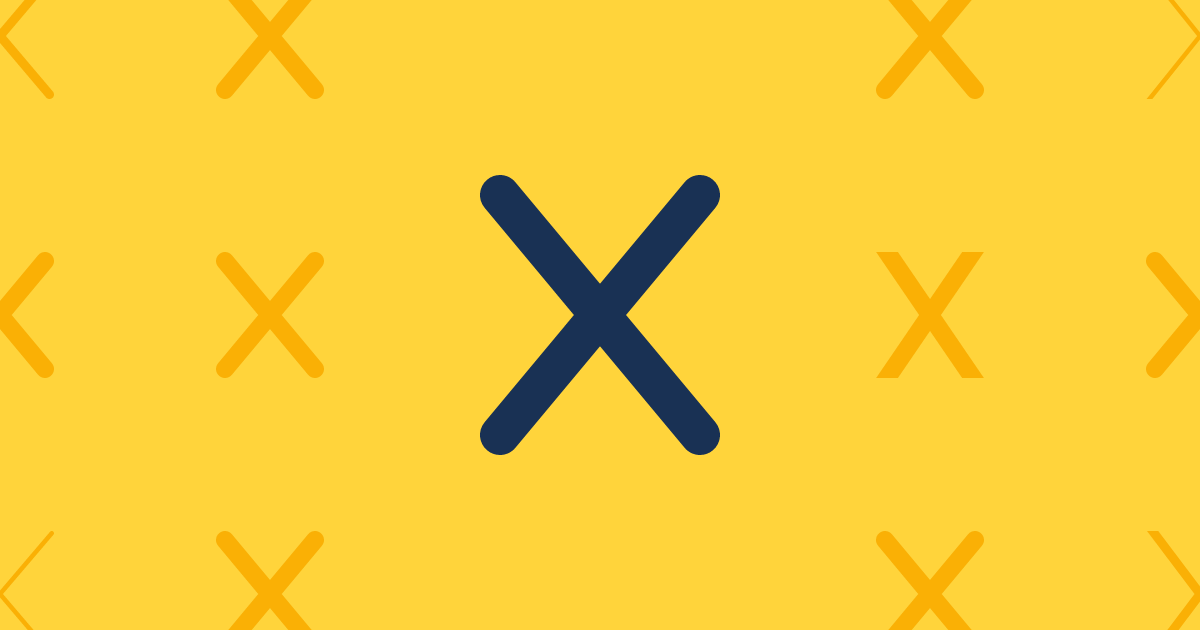
Font Awesome Icon X . Get set up and learn how to use version 5 icons in your projects, awesomely. Why does the twitter x icon not work in this code using font awesome 6? It is utilized for the termination or dismissal. Font awesome docs version 5. You asked, font awesome delivers with 41 shiny new icons in version 4.7. The font awesome 'x' icon is used to represent alphabets or to serve as a cancel, dismiss, and close icon. Make a bold statement in small sizes. This is the link to the font awesome. The complete set of 675 icons in font awesome 4.7.0. Available now in font awesome 6. X icon in the solid style. You can place font awesome icons just about anywhere, and we’ve tried to make it so that icons will take on the characteristics and blend in with.
Why does the twitter x icon not work in this code using font awesome 6? You can place font awesome icons just about anywhere, and we’ve tried to make it so that icons will take on the characteristics and blend in with. It is utilized for the termination or dismissal. Font awesome docs version 5. You asked, font awesome delivers with 41 shiny new icons in version 4.7. Available now in font awesome 6. The font awesome 'x' icon is used to represent alphabets or to serve as a cancel, dismiss, and close icon. Get set up and learn how to use version 5 icons in your projects, awesomely. Make a bold statement in small sizes. The complete set of 675 icons in font awesome 4.7.0.
Font Awesome Icon X Get set up and learn how to use version 5 icons in your projects, awesomely. The font awesome 'x' icon is used to represent alphabets or to serve as a cancel, dismiss, and close icon. The complete set of 675 icons in font awesome 4.7.0. Make a bold statement in small sizes. This is the link to the font awesome. Available now in font awesome 6. It is utilized for the termination or dismissal. Why does the twitter x icon not work in this code using font awesome 6? Get set up and learn how to use version 5 icons in your projects, awesomely. Font awesome docs version 5. You can place font awesome icons just about anywhere, and we’ve tried to make it so that icons will take on the characteristics and blend in with. You asked, font awesome delivers with 41 shiny new icons in version 4.7. X icon in the solid style.
Font Awesome 5.1 409 New Icons + More Font Awesomeness Font Awesome Icon X Get set up and learn how to use version 5 icons in your projects, awesomely. Make a bold statement in small sizes. Font awesome docs version 5. Why does the twitter x icon not work in this code using font awesome 6? This is the link to the font awesome. X icon in the solid style. The complete set of. Font Awesome Icon X.
Font Awesome Icon X X icon in the solid style. Get set up and learn how to use version 5 icons in your projects, awesomely. Why does the twitter x icon not work in this code using font awesome 6? Available now in font awesome 6. Font awesome docs version 5. You asked, font awesome delivers with 41 shiny new icons in version 4.7.. Font Awesome Icon X.
Font Awesome Icon X Get set up and learn how to use version 5 icons in your projects, awesomely. Why does the twitter x icon not work in this code using font awesome 6? Make a bold statement in small sizes. This is the link to the font awesome. You asked, font awesome delivers with 41 shiny new icons in version 4.7. Font awesome. Font Awesome Icon X.
Font Awesome Icon X It is utilized for the termination or dismissal. Get set up and learn how to use version 5 icons in your projects, awesomely. Make a bold statement in small sizes. Why does the twitter x icon not work in this code using font awesome 6? This is the link to the font awesome. X icon in the solid style. Font. Font Awesome Icon X.
Font Awesome Icon X X icon in the solid style. The font awesome 'x' icon is used to represent alphabets or to serve as a cancel, dismiss, and close icon. It is utilized for the termination or dismissal. Get set up and learn how to use version 5 icons in your projects, awesomely. Why does the twitter x icon not work in this code. Font Awesome Icon X.
Font Awesome Icon X You can place font awesome icons just about anywhere, and we’ve tried to make it so that icons will take on the characteristics and blend in with. You asked, font awesome delivers with 41 shiny new icons in version 4.7. Get set up and learn how to use version 5 icons in your projects, awesomely. The font awesome 'x' icon. Font Awesome Icon X.
Font Awesome Icon X You can place font awesome icons just about anywhere, and we’ve tried to make it so that icons will take on the characteristics and blend in with. Available now in font awesome 6. The font awesome 'x' icon is used to represent alphabets or to serve as a cancel, dismiss, and close icon. Font awesome docs version 5. Why does. Font Awesome Icon X.
Font Awesome Icon X X icon in the solid style. You can place font awesome icons just about anywhere, and we’ve tried to make it so that icons will take on the characteristics and blend in with. This is the link to the font awesome. Get set up and learn how to use version 5 icons in your projects, awesomely. You asked, font awesome. Font Awesome Icon X.
Font Awesome Icon X You asked, font awesome delivers with 41 shiny new icons in version 4.7. Get set up and learn how to use version 5 icons in your projects, awesomely. Why does the twitter x icon not work in this code using font awesome 6? It is utilized for the termination or dismissal. This is the link to the font awesome. The. Font Awesome Icon X.
Font Awesome Icon X The complete set of 675 icons in font awesome 4.7.0. This is the link to the font awesome. Available now in font awesome 6. The font awesome 'x' icon is used to represent alphabets or to serve as a cancel, dismiss, and close icon. Make a bold statement in small sizes. Get set up and learn how to use version. Font Awesome Icon X.
Font Awesome Icons Keyboard at Willie Curry blog Font Awesome Icon X You can place font awesome icons just about anywhere, and we’ve tried to make it so that icons will take on the characteristics and blend in with. Font awesome docs version 5. The complete set of 675 icons in font awesome 4.7.0. This is the link to the font awesome. Available now in font awesome 6. It is utilized for. Font Awesome Icon X.